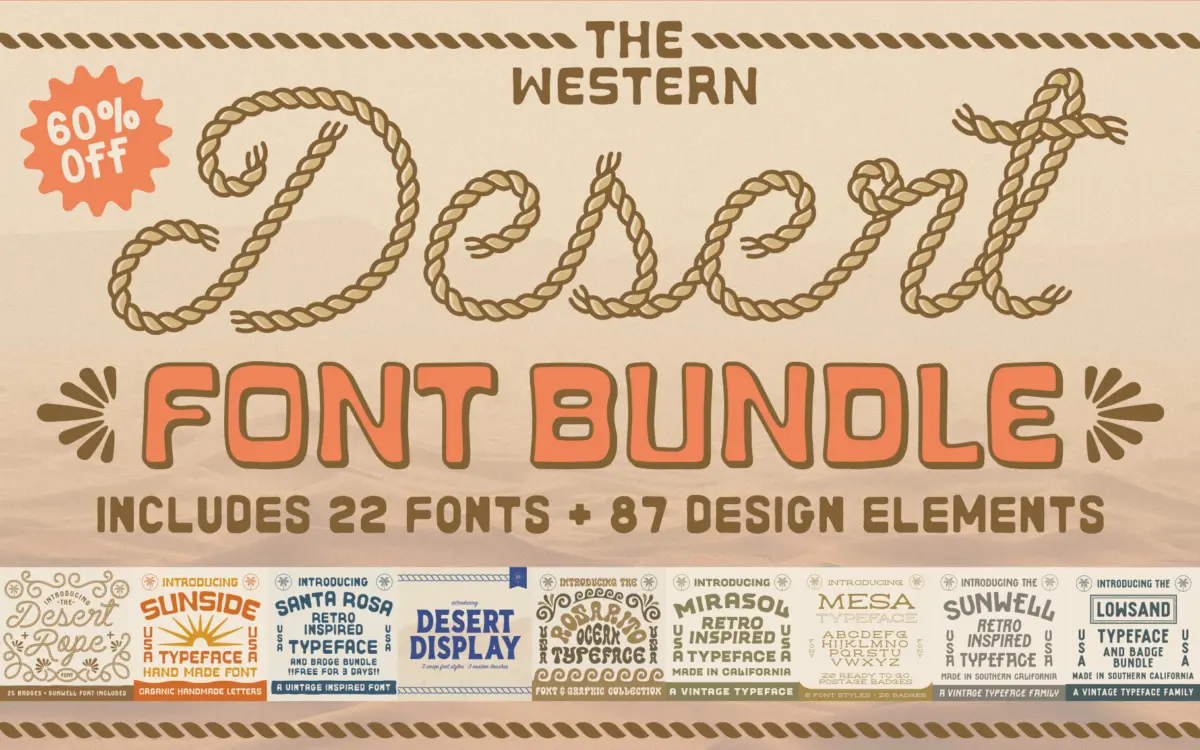
This isn’t one typeface but a collection of twenty-two, gathered under a loose western-desert theme: rope-lettering scripts, sun-bleached slab display faces, and a handful of vintage serifs and script duos pulled from NienowBrand’s back catalogue. The unifying idea is texture and nostalgia rather than a single design system. You get the twisted-rope letterforms of Desert Rope, the sturdy blocky caps of Mesa, the looser brush feel of Sunwell, and coastal-leaning variants like Rosarito and Sunside that stretch the “desert” premise toward beach-town signage.
Because these are separate fonts from separate release dates, the drawing quality varies. Some faces show real care in how the rope strands overlap and shade; others are simpler slab or script forms that lean on roughened edges and grain textures to do the work. None of it aims for precision. The point is a hand-built, saloon-sign, badge-and-brand look, and on that count most of the set delivers.
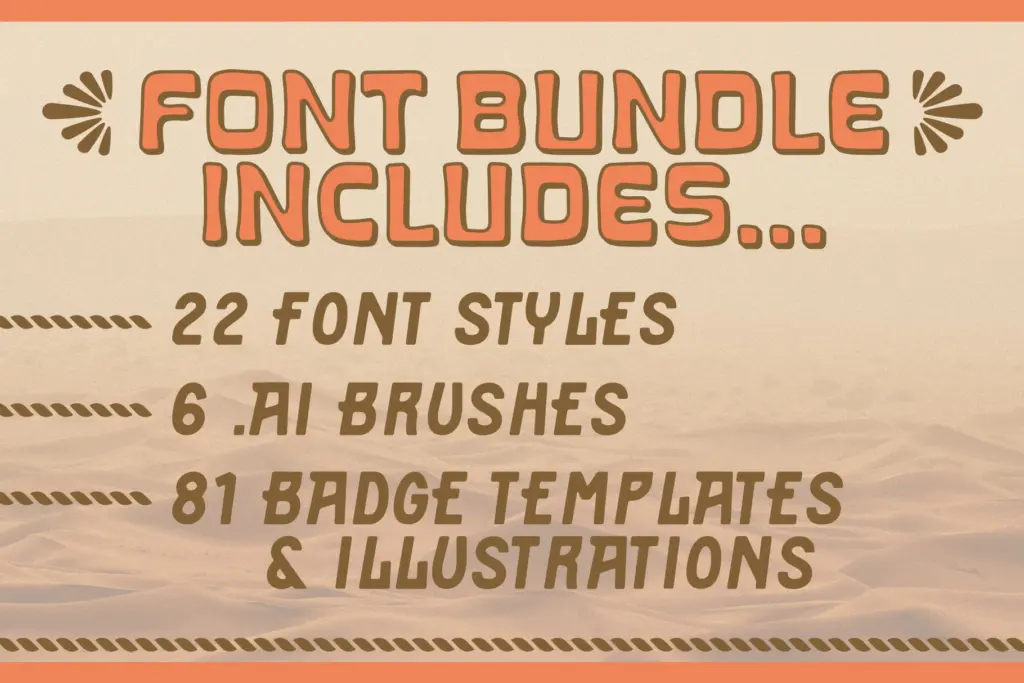
Coverage is inconsistent across twenty-two fonts made at different times, so don’t expect uniform language support or matching alternate sets. The rope fonts tend to include swash caps and some ligatures for the illustrated look; the display and slab faces are generally simpler, built for short words rather than paragraphs. The bundle also throws in 81 badge templates and illustrations plus six Illustrator brushes, which matter more here than usual — the fonts are clearly meant to be assembled into pre-built badge layouts rather than typed out cold in a text box. If you strip away the templates and just look at the raw fonts, several feel thin on extended character sets, weights, or italics.
This is a grab-bag rather than a designed family, so pairing fonts within the bundle takes some judgement. A rope script over a slab caps face works well for a badge; two rope fonts stacked together fight each other. Buyers should expect to pick two or three fonts from the twenty-two and ignore the rest, rather than using the whole set on one project.
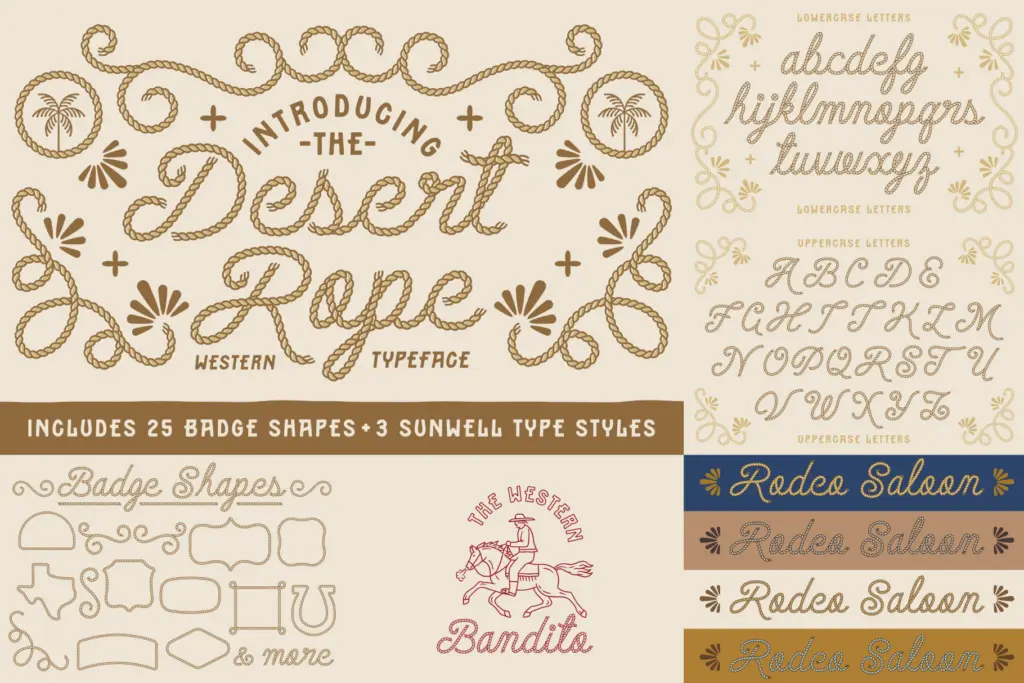
This bundle is built for a specific job: western-themed branding, rodeo and ranch logos, cowboy-wedding invitations, craft beer or hot sauce labels, and any packaging that wants a sun-worn, hand-lettered badge look. The rope fonts and slab display faces are strong for logotypes and short headline treatments where texture reads as character rather than noise. The included badge templates make this an efficient starting point for someone assembling a logo mark quickly rather than drawing one from scratch.
It is not a body-copy toolkit. None of these fonts are meant for paragraphs, captions, or long-form editorial use, and mixing them into a modern, clean-lined brand system will look like a costume rather than a choice. Treat it as a themed prop box: pull out what fits a rustic or coastal-western brief, and reach for something else when the project calls for restraint.
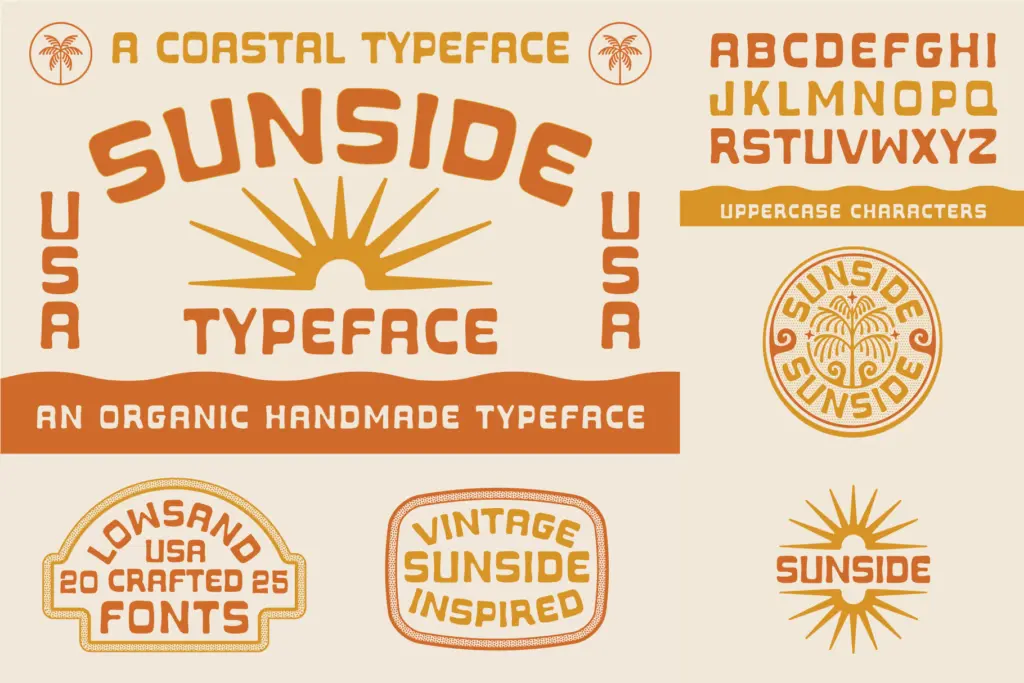
- The rope-lettering fonts have genuine texture in how strands overlap and shade
- Badge templates and Illustrator brushes make assembling a finished logo mark fast
- Wide range of western and coastal styles gives options across several sub-themes
- Quality and character coverage vary noticeably across the twenty-two fonts since they weren't designed as one family
- Nearly all faces are display-only, unsuited to paragraph or long-form text
A themed grab-bag of twenty-two western and coastal fonts plus badge templates, useful for quickly assembling rodeo, ranch, or cowboy-wedding branding. The individual fonts vary in polish and aren't built as a coherent family, so expect to cherry-pick two or three rather than use the whole set. Good for short badge-style lockups, not for body text or restrained modern branding.